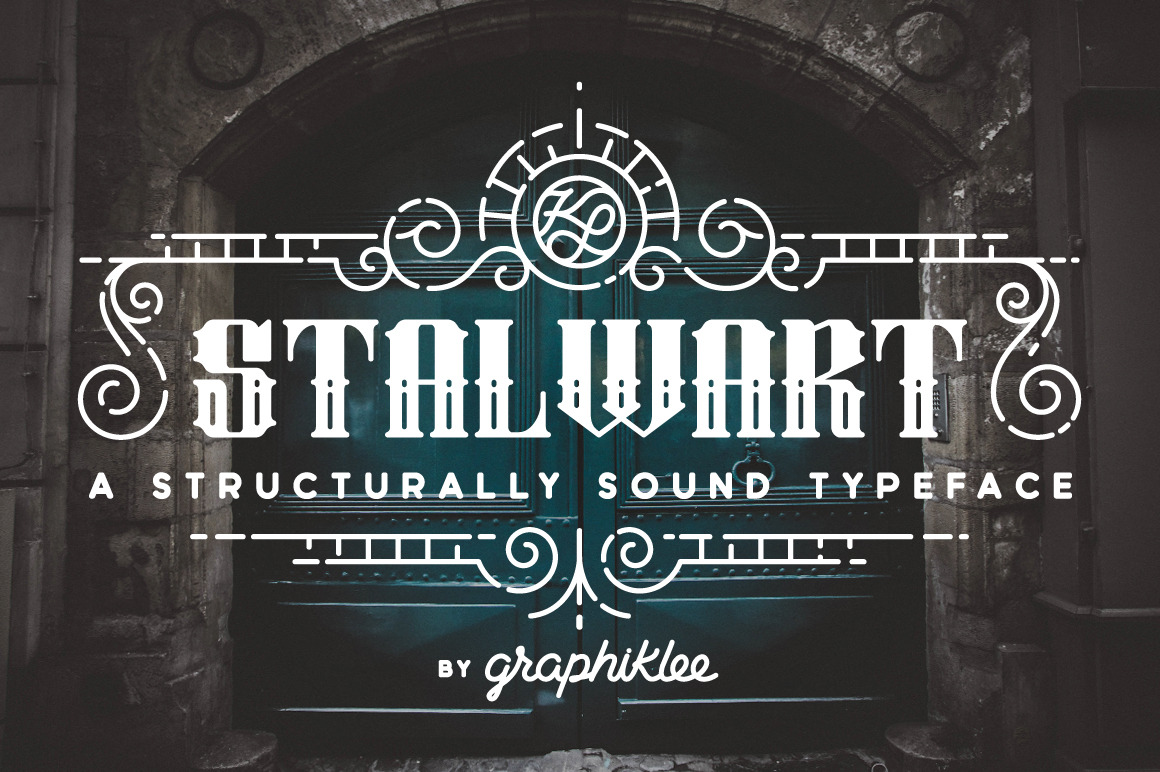
Stalwart Typeface
STALWART | adjective
- strongly and stoutly built; sturdy and robust
- loyal, reliable, and hardworking
- firm, steadfast, or uncompromising
This typeface was inspired by elements found in architecture, woodwork and tattoo lettering. Consistent vertical and horizontal widths from a strong foundation for logos, headlines and illustrations. It pairs particularly well with monoline designs. Whether you’re aiming for vintage or modern, Stalwart is built give your work a look that will stand the test of time.
Four Styles
- Outline
- Notched
- Outline Notched
Diacritics and special characters make Stalwart a multilingual font.